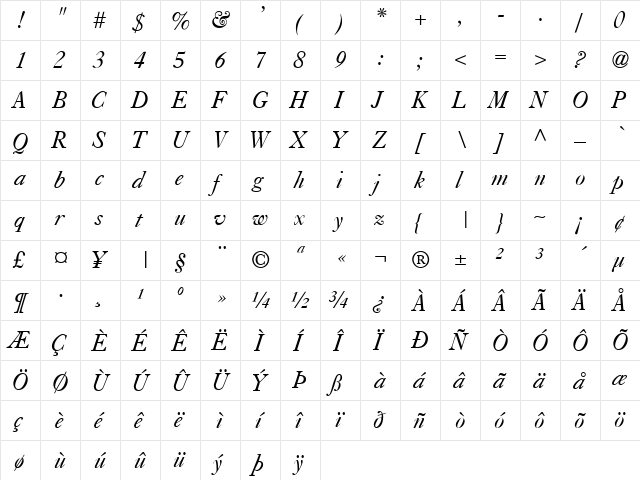
Casablanca Italic Font Preview
Casablanca Italic
Casablanca Italic Font Details
Design Context for Casablanca Typeface
Casablanca is a composed and adaptable typeface that performs quietly and consistently across a wide range of design contexts. The slanted form adds forward momentum and visual energy.